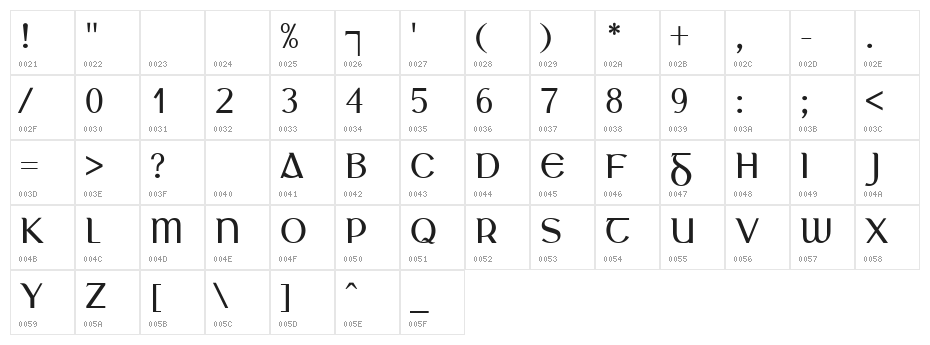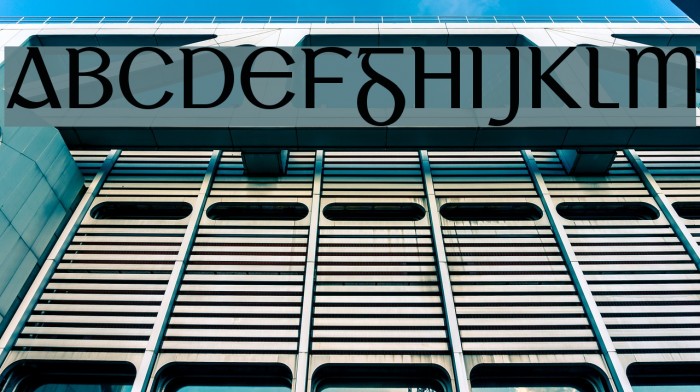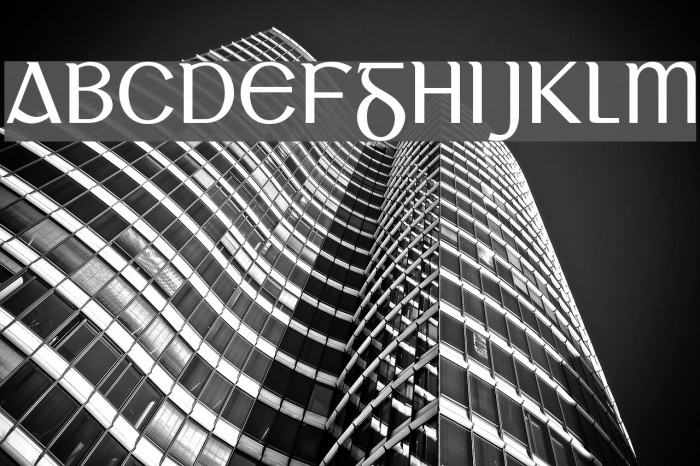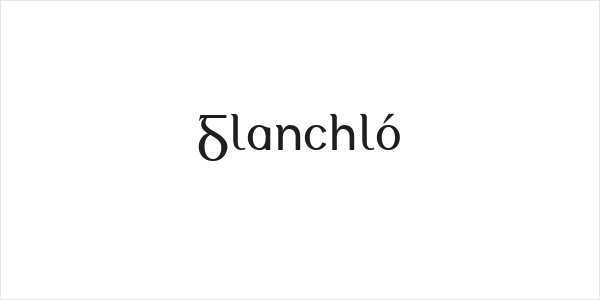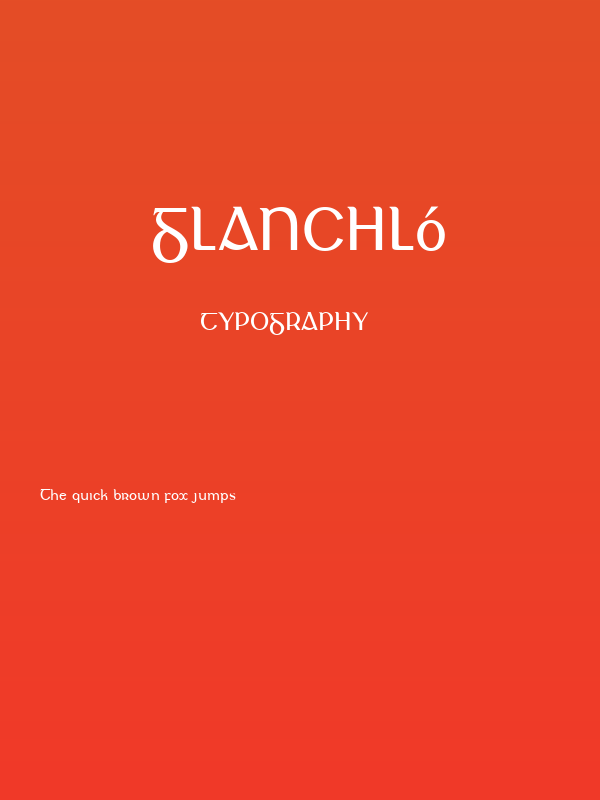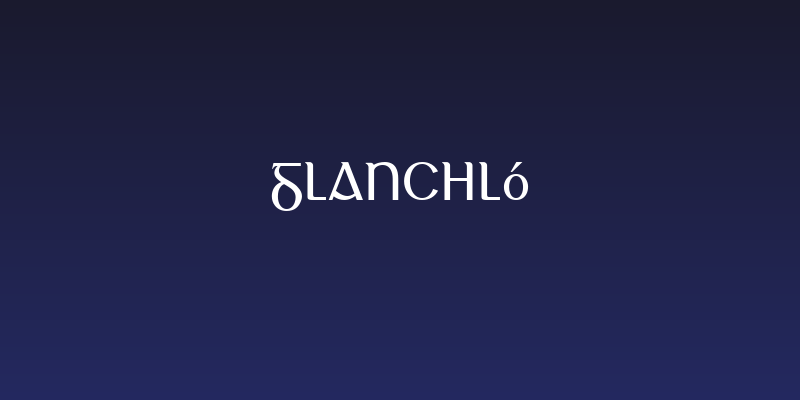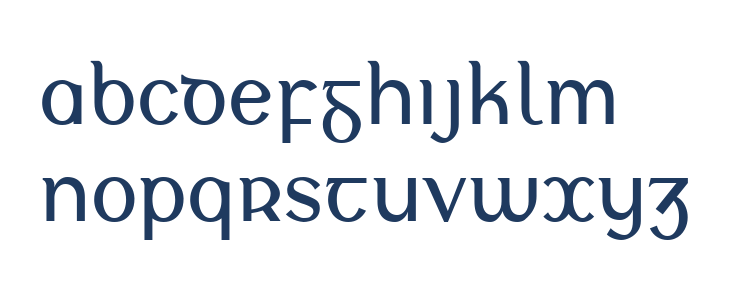
Glanchló Font
Glanchló Description
This font features a unique blend of traditional and modern elements, characterized by its distinct serifs and elegant curves. The uppercase letters exhibit a strong presence with sharp angles and smooth transitions, while the lowercase letters maintain a harmonious flow with subtle flourishes. The numerals are bold and easily readable, making them suitable for various applications. Special characters are thoughtfully designed to complement the overall aesthetic, adding a touch of sophistication. The font's style is both versatile and distinctive, making it ideal for creative projects that require a touch of elegance.
GLANCHL UPPERCASE
GLANCHL LOWERCASE
GLANCHL OTHER CHARS